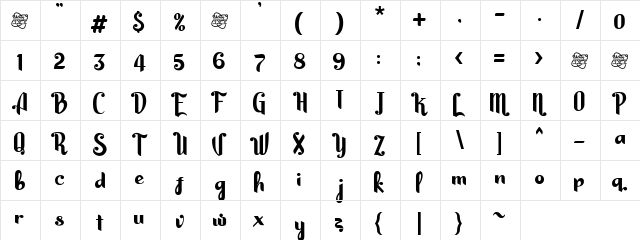
Harson Demo
Design Context for Harson Typeface
Harson is a composed and adaptable typeface that performs quietly and consistently across a wide range of design contexts.